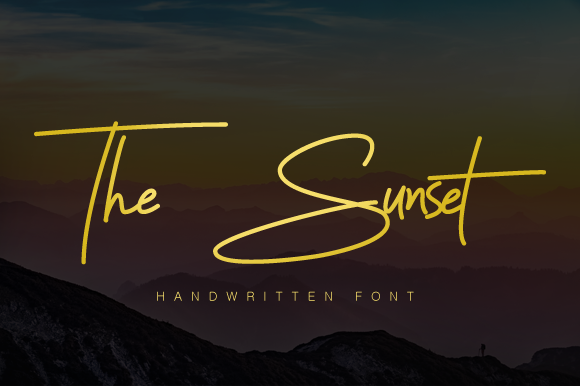
The Sunset Handwriting Font
The sunset is a fresh, modern handwritten font. It’s elegant, has a natural style and is the perfect font for a large range of projects.
Classification: | Handwritten, Script |